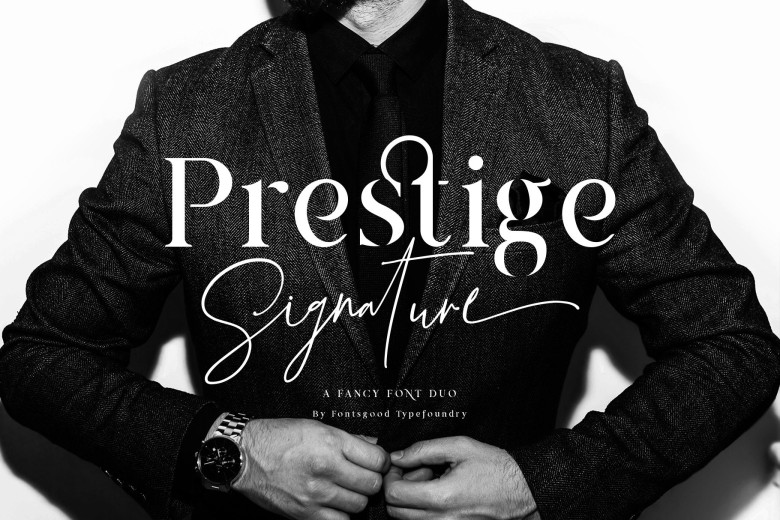
Prestige Signature Script – Demo
Say hi to ” Prestige” a fancy serif and script font. With a stylish old school serif font and a free-flowing signature script. Easy to use for your design projects, including logos & branding, wedding designs, social media posts, advertisements & product designs.